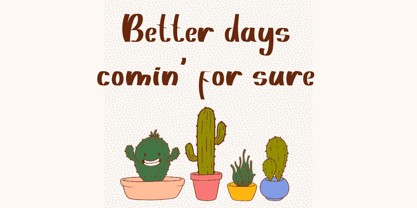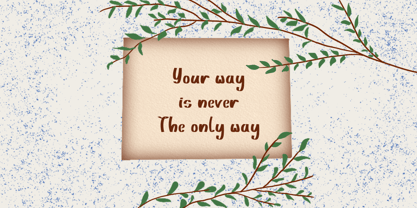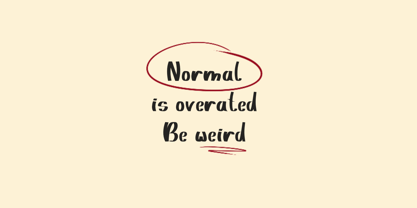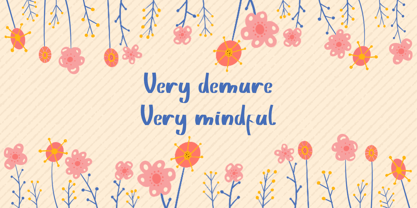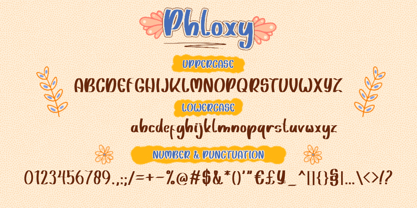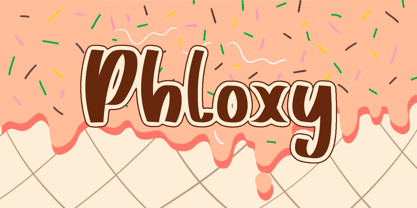
Phloxy
The Phloxy Font Family was designed by Khair Unnas and published by Khaiuns. Phloxy contains 1 styles.
Phloxy is a bold and energetic handwritten brush font that brings a vibrant and expressive touch to your designs. Its dynamic strokes and unique character make it perfect for projects that demand creativity and personality, such as posters, branding, packaging, invitations, and more. With its handcrafted feel, Phloxy adds a personal and playful vibe that stands out in any setting.
• Phloxy Regular
• 231+ total glyphs
• Standard English characters
• Accented characters